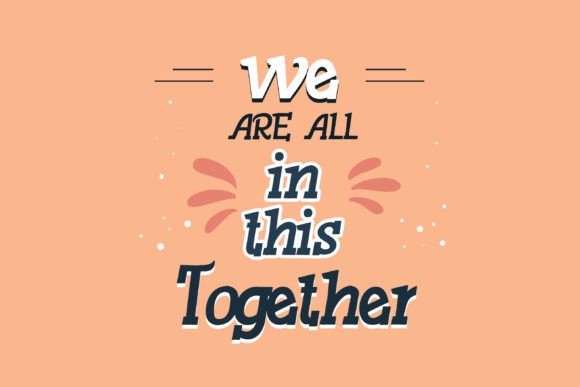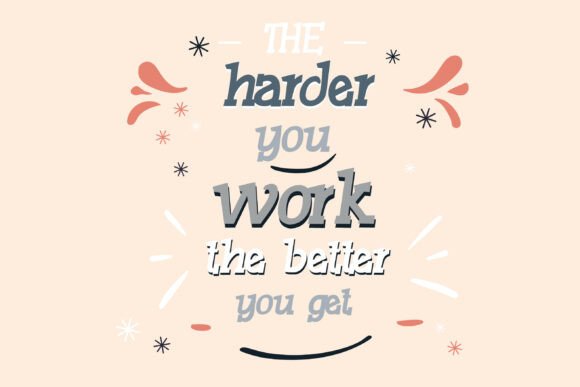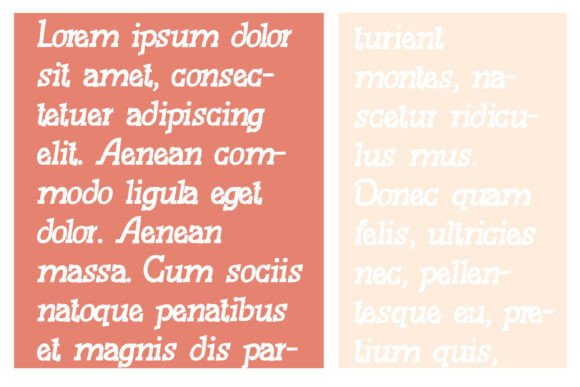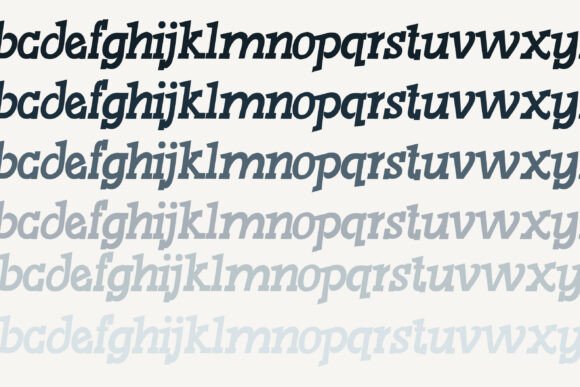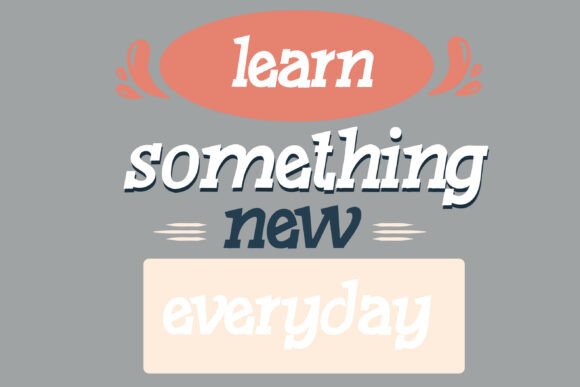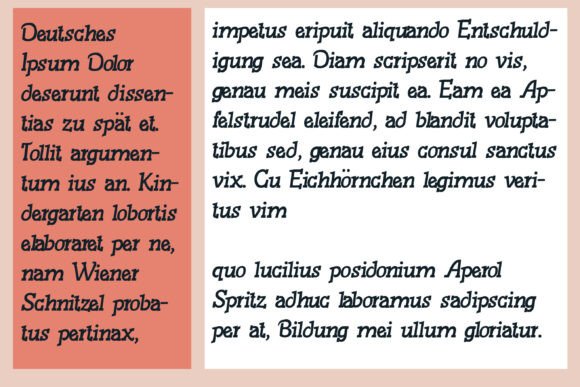
Barely Beige Font: A Hand-Crafted Serif Font with Vintage Charm
In the world of typography, fonts play a crucial role in conveying the tone and personality of a brand or design. For designers and crafters looking for a unique and handmade aesthetic, Barely Beige font is an excellent choice. This hand-crafted serif font boasts a soft, organic flow and a touch of vintage charm, making it perfect for branding, packaging, and editorial work.
What is Barely Beige Font?
Barely Beige is a carefully crafted serif font that exudes warmth and character. Its unique letterforms are designed to bring a gentle, handmade feel to any design, setting it apart from more traditional and uniform fonts. The font’s soft, organic flow is reminiscent of handwritten scripts, while its serif details add a touch of sophistication and elegance.
Key Features of Barely Beige Font
• Hand-crafted letterforms: Each letterform in Barely Beige font is carefully crafted to ensure a unique and handmade feel.
• Soft, organic flow: The font’s flowing lines and curves create a sense of warmth and approachability.
• Vintage charm: Barely Beige font’s serif details and classic letterforms evoke a sense of nostalgia and timelessness.
• Highly legible: Despite its unique and handmade feel, Barely Beige font remains highly legible, making it suitable for body text and headlines.
Uses of Barely Beige Font
Barely Beige font is an incredibly versatile font that can be used in a variety of design applications. Here are some of the most popular uses of this beautiful font:
• Branding: Use Barely Beige font to create a unique and memorable brand identity that stands out from the crowd.
• Packaging: Add a touch of handmade charm to your packaging designs with Barely Beige font.
• Editorial work: Use Barely Beige font to add a touch of elegance and sophistication to your editorial designs, such as magazines, newspapers, and books.
• Stationery: Create beautiful and unique stationery designs, such as business cards, letterheads, and envelopes, with Barely Beige font.
Tips for Using Barely Beige Font
To get the most out of Barely Beige font, here are some tips to keep in mind:
• Use it sparingly: While Barely Beige font is beautiful, it’s best used sparingly to avoid overwhelming the design.
• Pair it with contrasting fonts: Pair Barely Beige font with contrasting fonts, such as sans-serif fonts, to create visual interest and hierarchy.
• Experiment with colors: Barely Beige font looks beautiful in a range of colors, so don’t be afraid to experiment and find the perfect hue for your design.
Barely Beige font is a beautiful and unique hand-crafted serif font that brings warmth and character to any design. Its soft, organic flow and vintage charm make it perfect for designers and crafters looking for a handmade aesthetic. With its versatility and highly legible letterforms, Barely Beige font is an excellent choice for branding, packaging, editorial work, and more.